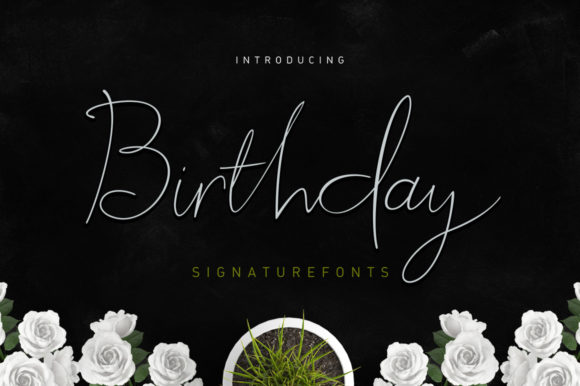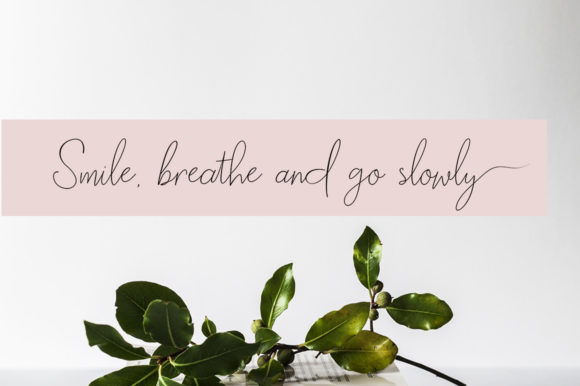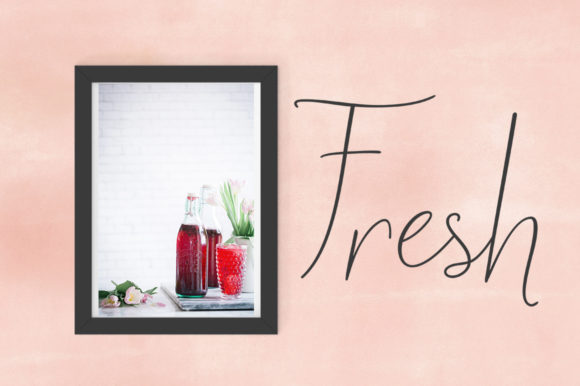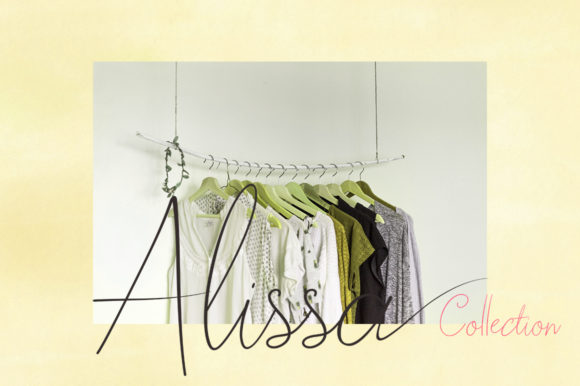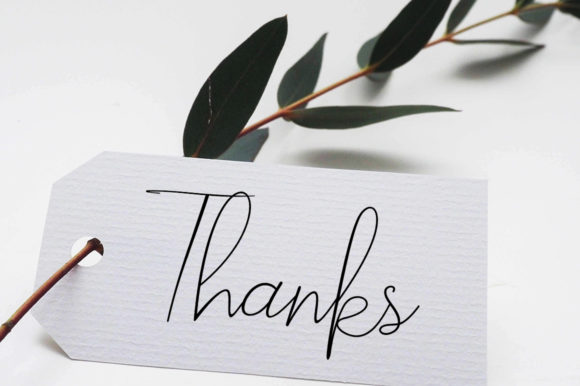
Birthday Script Font
About Birthday Script Font
The Birthday Script is a modern handwritten script. It’s easy to use and has a great readability. Perfect for branding designs!